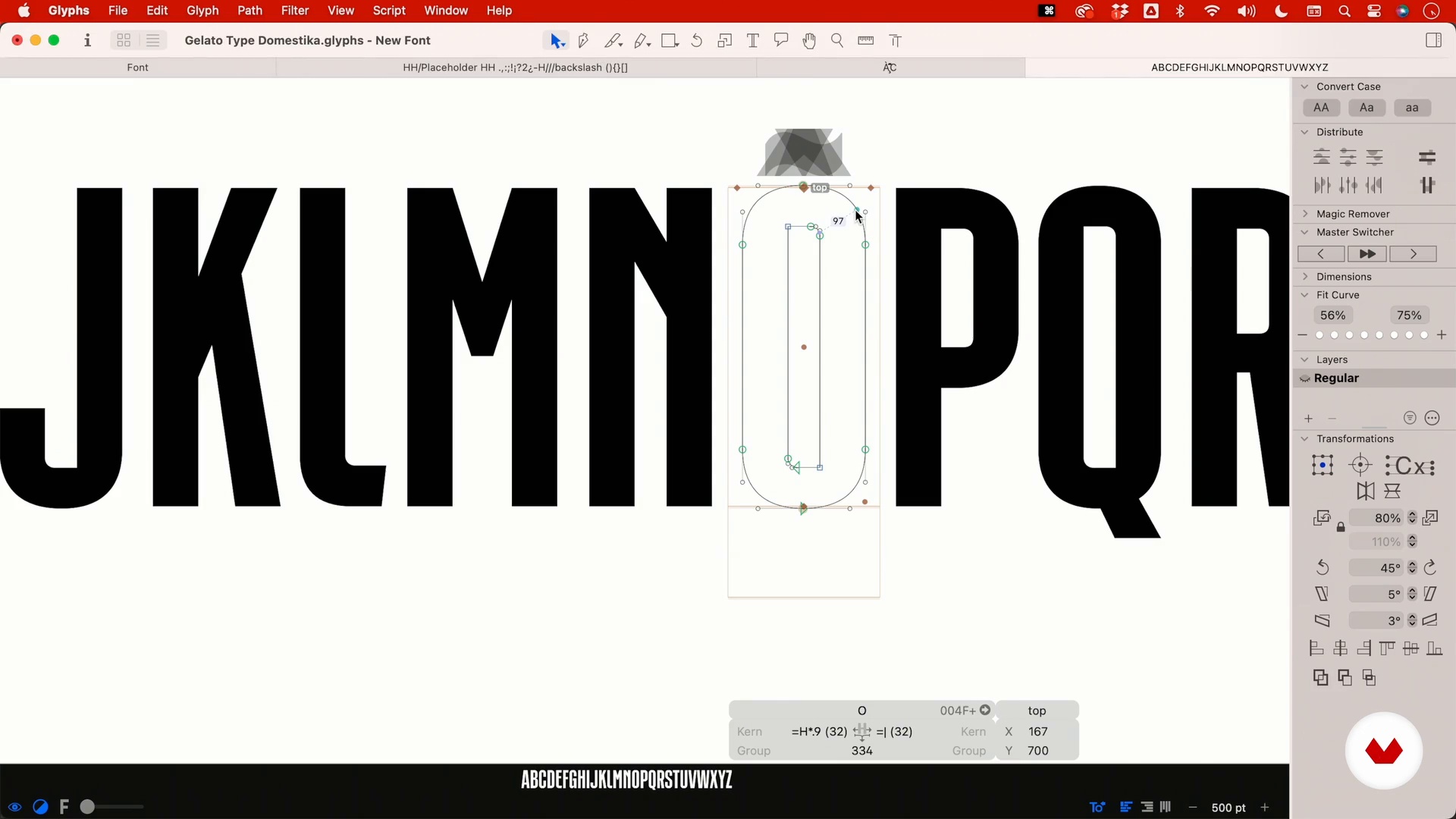
Advanced Brand Typography
Vectorization: numbers and orthographic signs 2
A course by Plau , Designers
About the video: Vectorization: numbers and orthographic signs 2
“Let's finish vectorizing our list of characters and adjusting some that can be improved. ”
In this video lesson Plau addresses the topic: Vectorization: numbers and orthographic signs 2, which is part of the Domestika online course: Advanced Brand Typography. Discover how to design your own typography and create a unique brand with our step-by-step course. .
“I'll make the bracket because it's a bit easier. Here I will return to my set of 100. I'll take this part from here. Oh my. Keep it straight. Here I can set it equal to H. which is quite straight. On the other side. a fraction of this H. because it has a large blank space. I’d say it’s around that area. Maybe even a bit narrower because this font is very condensed. On the other side. the same thing. Since this font is all uppercase. it has no lowercase letters. so I don't have descenders here. right? Except for the capital letter Q. i have no descenders. If I had this base. this punctuation...”